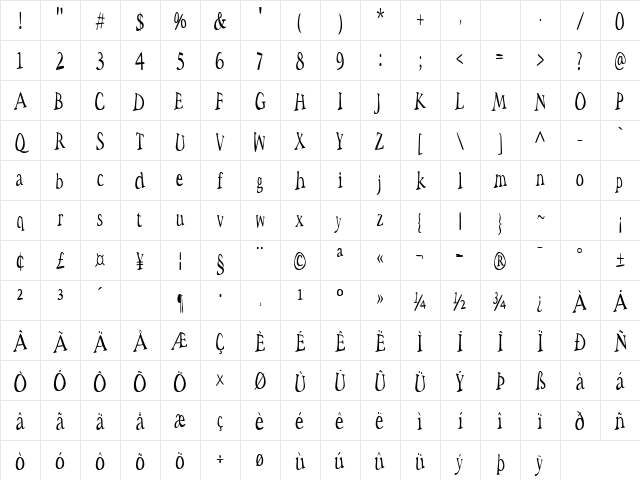
Space Woozies Regular
Design Context for Space Woozies
Space Woozies is a composed and adaptable typeface that performs quietly and consistently across a wide range of design contexts.